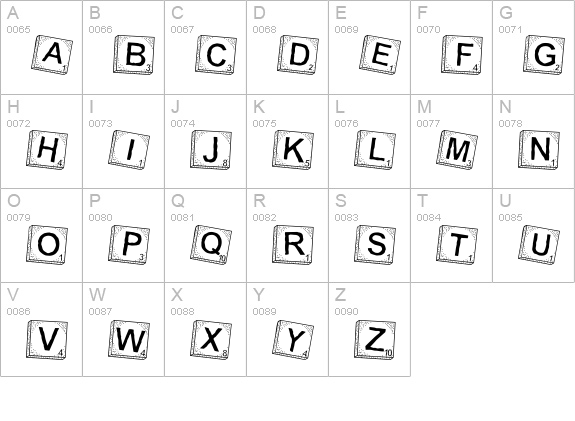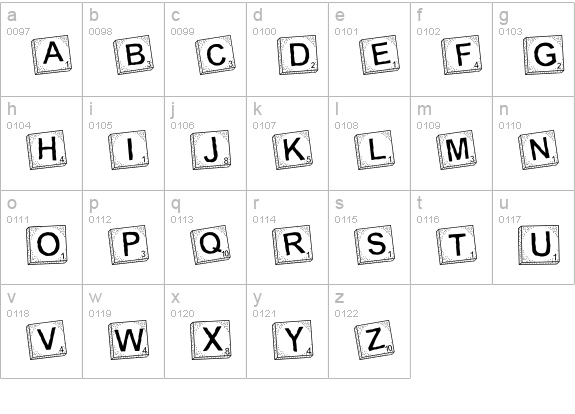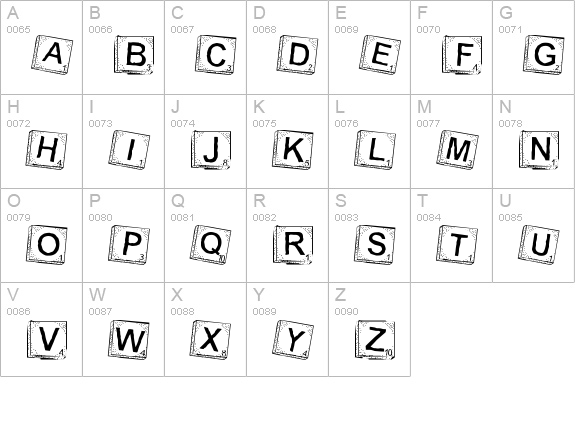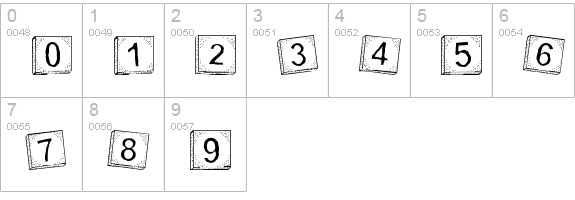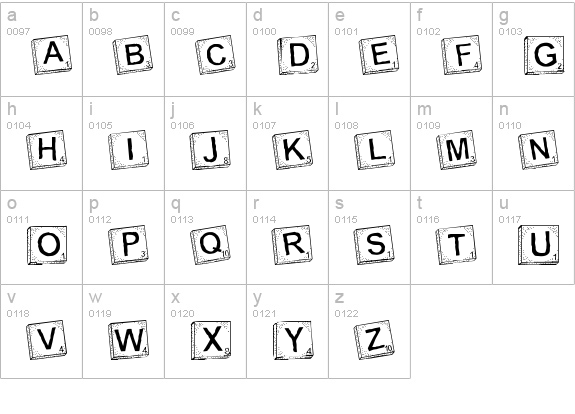
CK Game Night Font Details
Introducing CK Game Night font, a playful and whimsical typeface designed to add a touch of fun to your design projects. This unique font features quirky shapes and a hand-drawn aesthetic that is perfect for creating eye-catching headlines, posters, and more. With its bold and dynamic appearance, CK Game Night font is a great choice for projects that need a youthful and energetic vibe. One of the best things about CK Game Night font is that it is completely free to download at FontsMarket.com. Whether you're working on a personal project or a professional design, you can easily access this font and incorporate it into your work without any cost. Don't miss out on the opportunity to add this charming font to your collection and enhance your designs with its playful charm. Download CK Game Night font today and let your creativity shine!